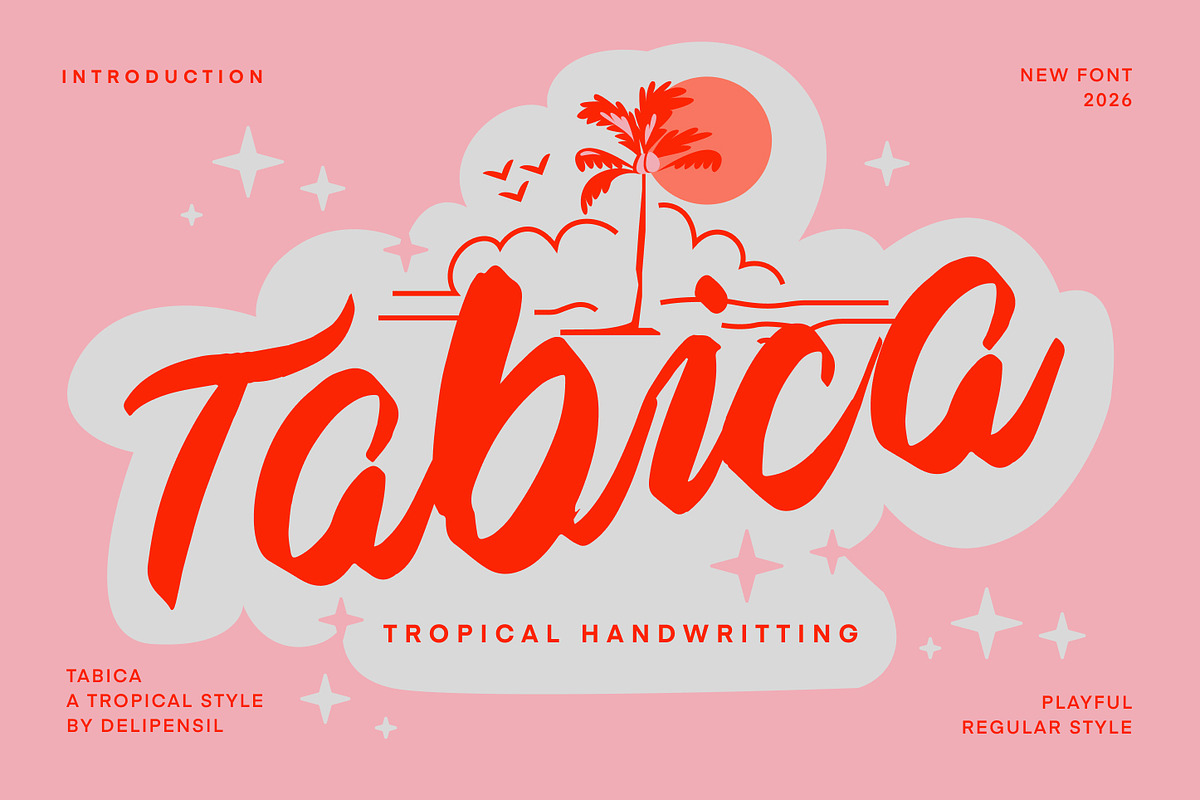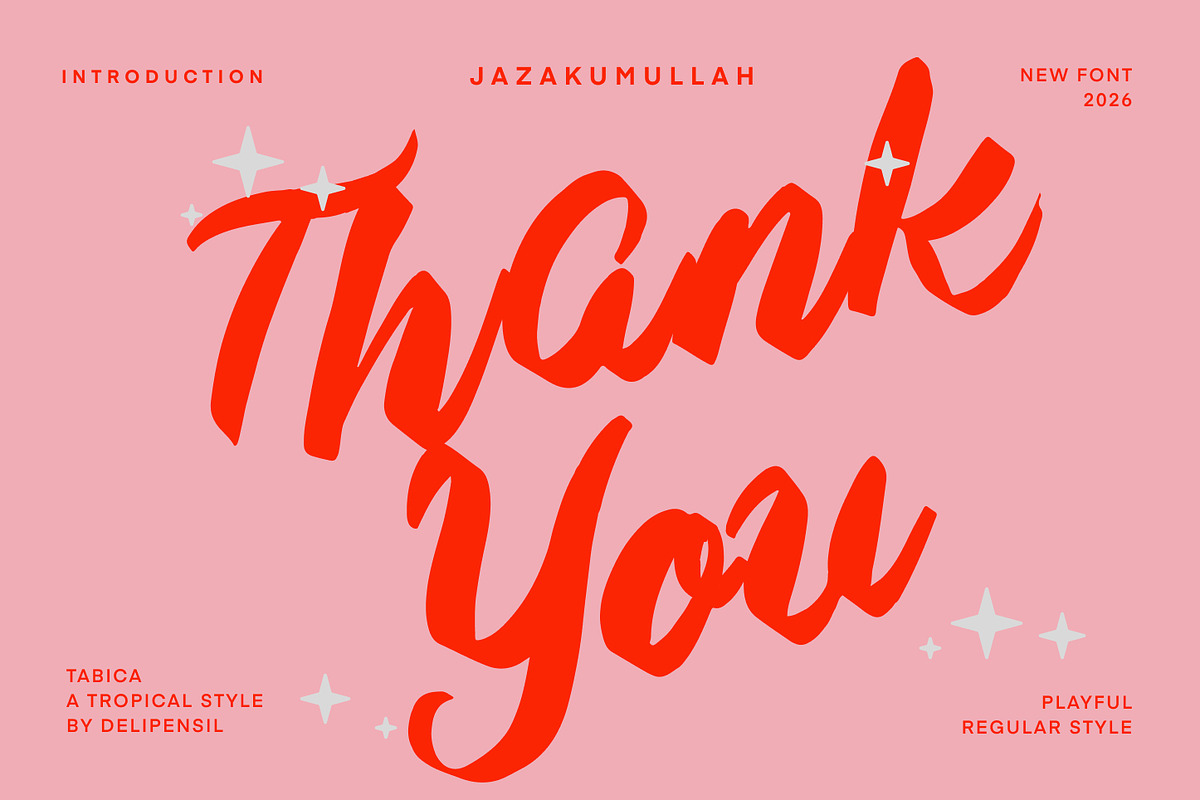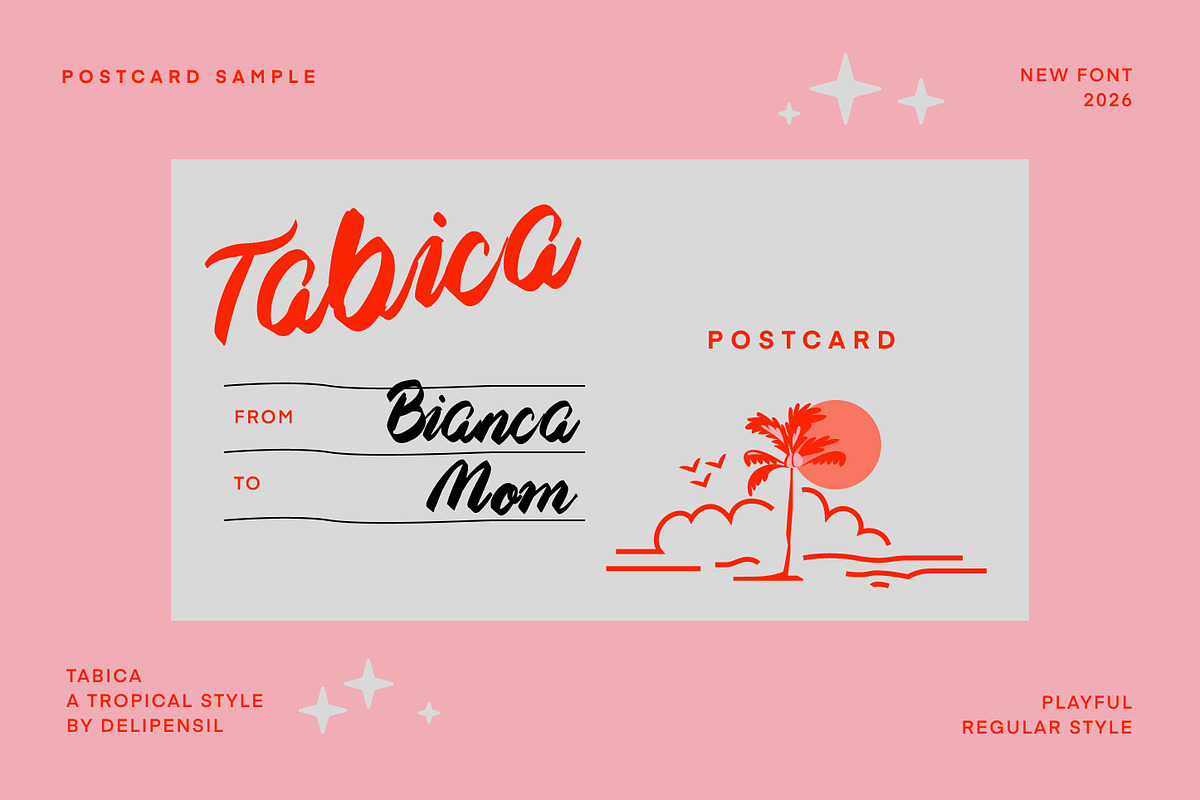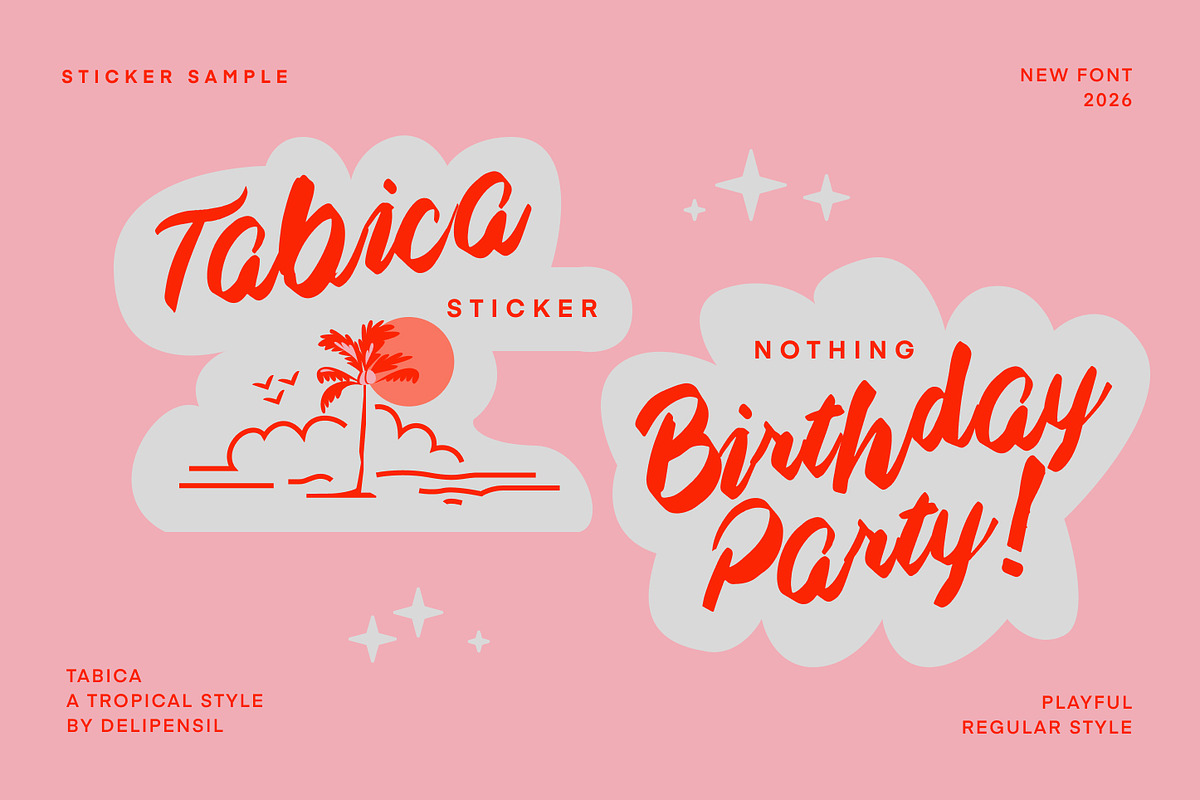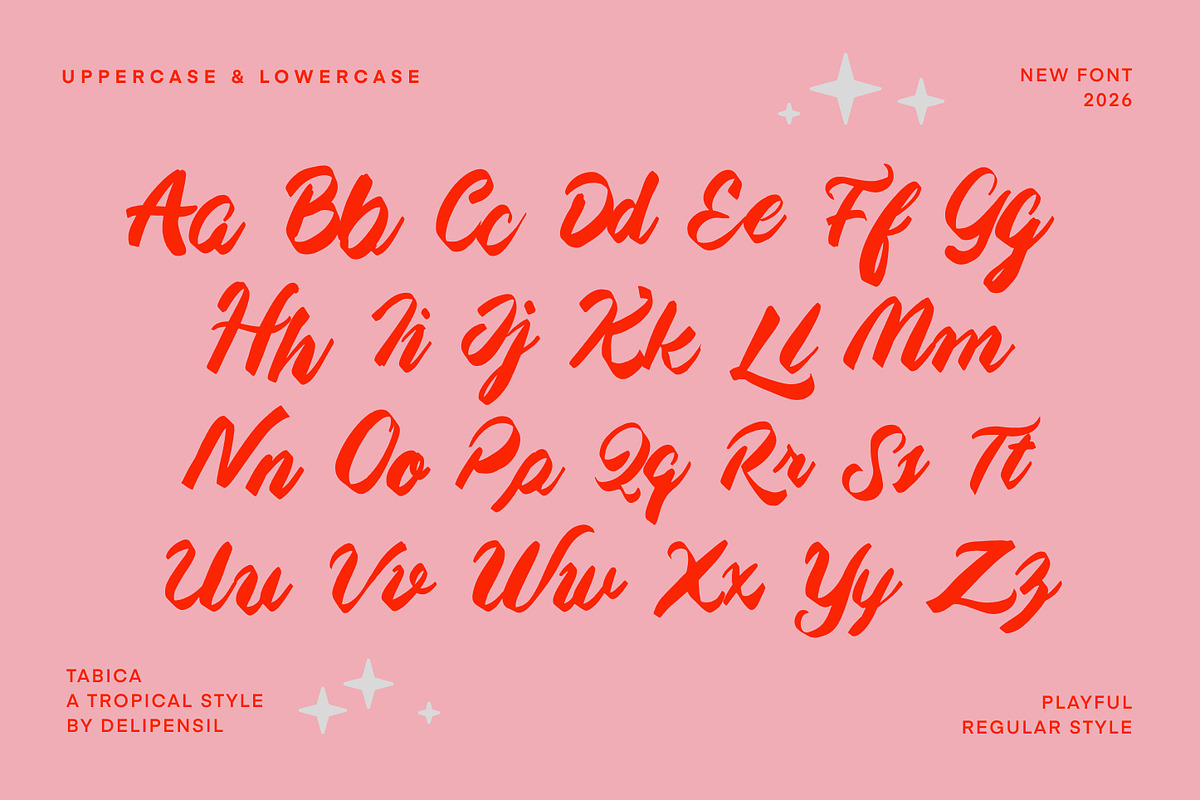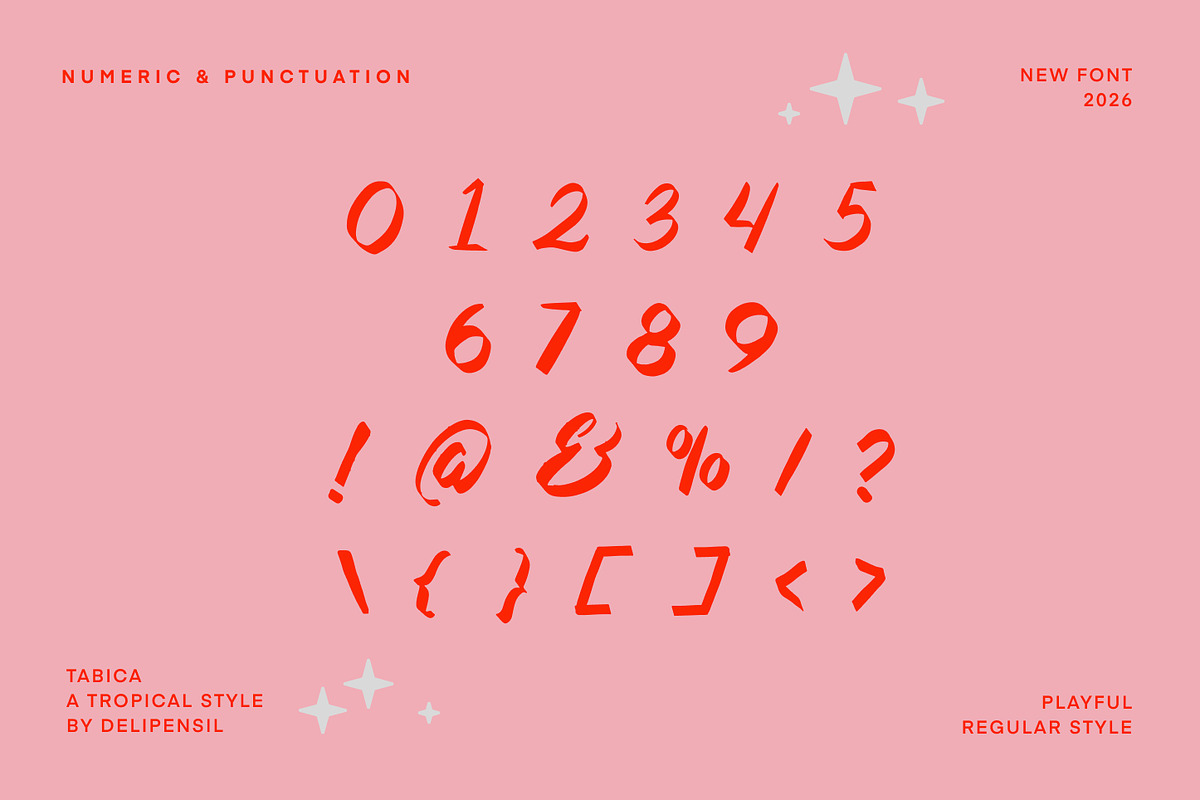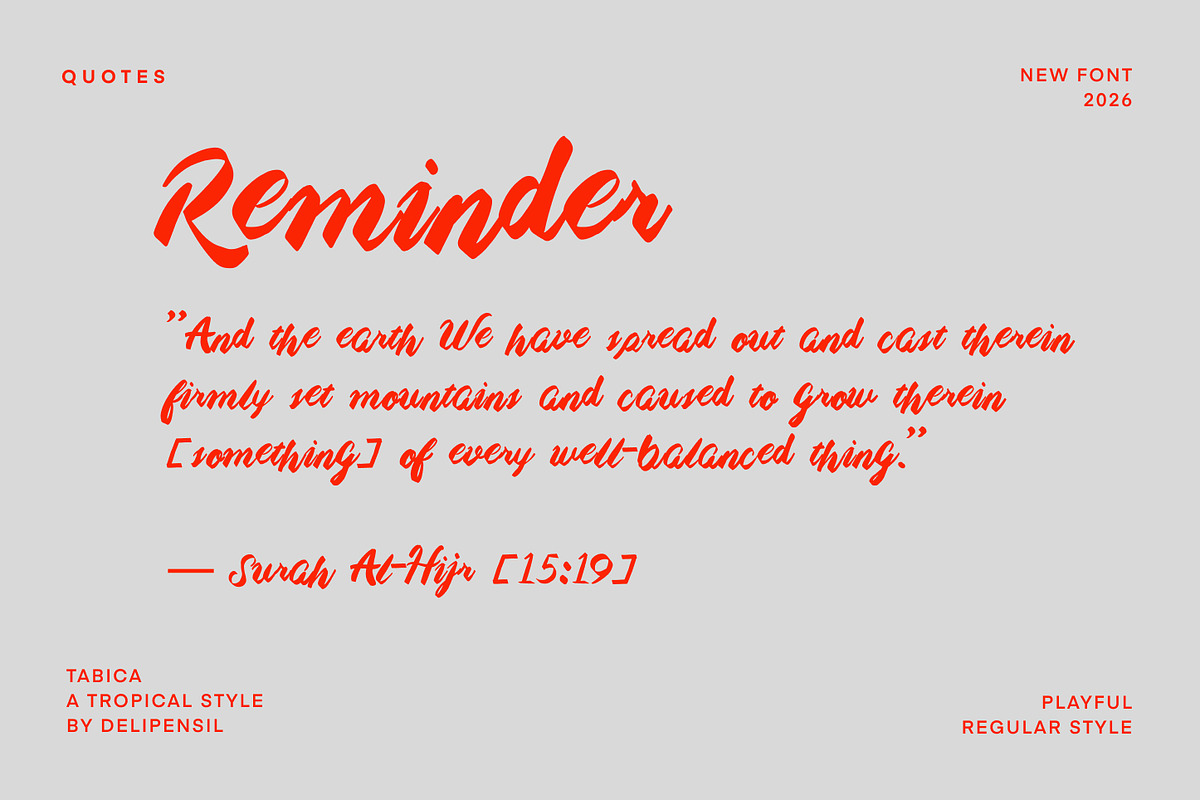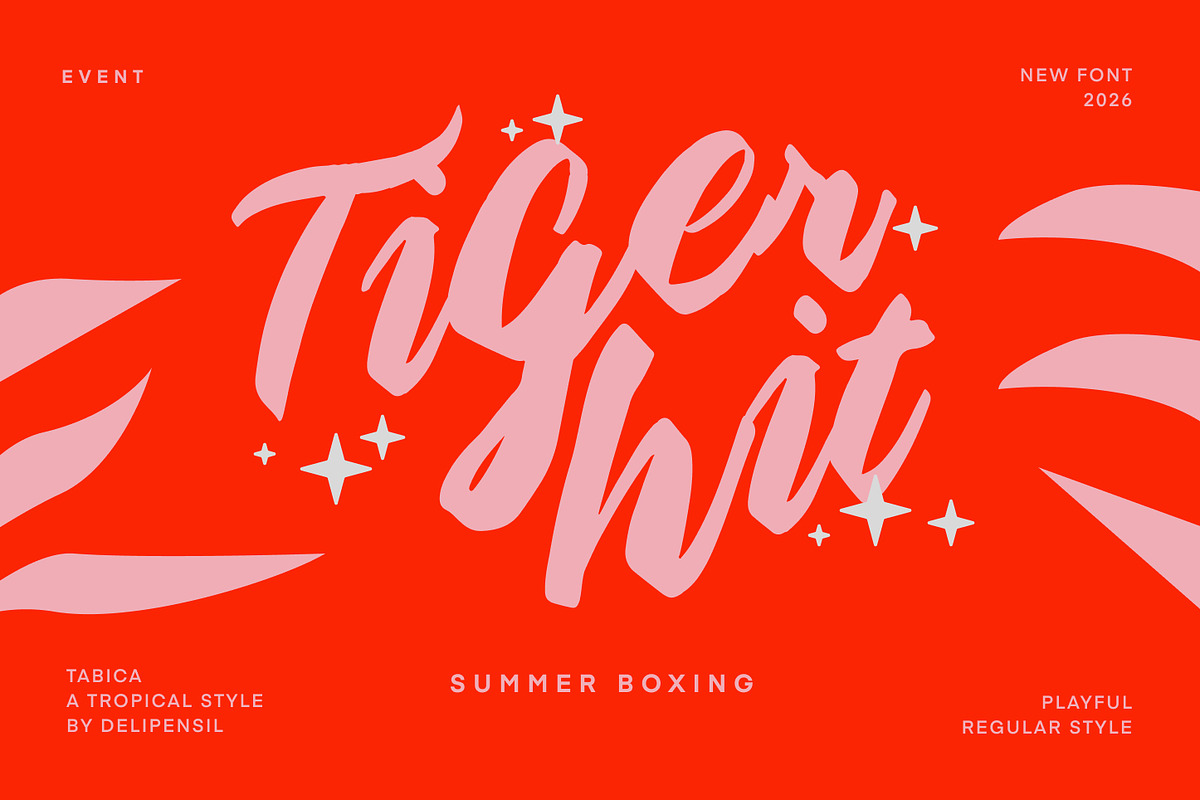
Tabica - A Tropical Handwriting Type
Bismillah, Introducing ✨ Tabica – A Tropical Style Handwriting Typeface
Tabica is our font inspired from tropical of nature, with simplicity, elegant, little bit brush feel, making your project will more life
This font is perfect for anything that wants to feel tropical, gentle, and personal—whether it's a logo
* Tabica Numeral & Punctuation
* Tabica Kerning Style
* Tabica Uppercase & Lowercase